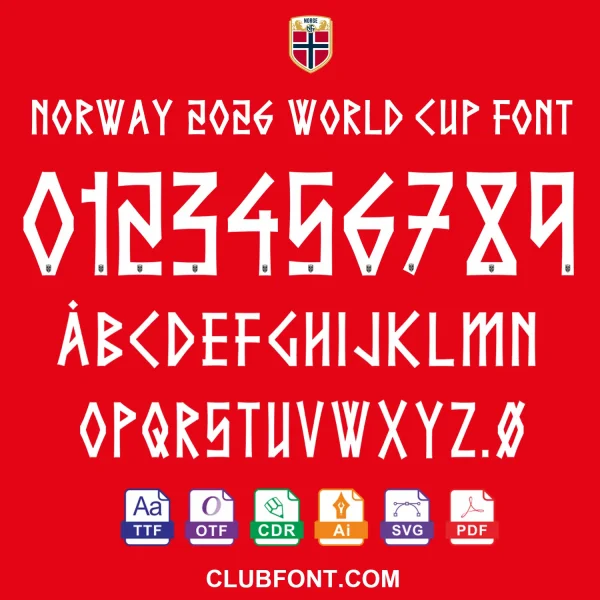
Replicate the bold, angular lettering worn on Norway’s 2026 World Cup home & away kits with this complete designer-recreation font package. Delivered as installable TTF + OTF system fonts​ plus fully editable CDR / PDF vector files, it gives you everything needed for custom jersey name-and-number printing, sublimation work, and matchday graphic design.
• Character Set:​ Full A–Z uppercase + 0–9 numerals + Norwegian characters (Ø, Å)
Grab the exact-match Norway 2026 World Cup Font Download for fan jerseys, match graphics, and print projects. This designer recreation mirrors the bold, runic-inspired typography on Norway’s 2026 kits—no official affiliation, just high-quality design assets.
• Full Character Set: A–Z uppercase, 0–9 numerals, plus Norwegian specials (Ø, Å).